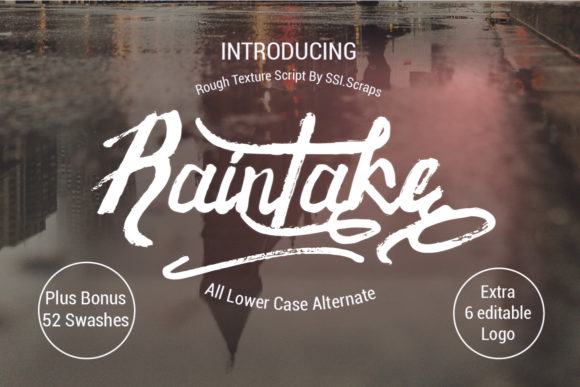
Prepare to be captivated by the Raintake Font, a breathtaking script that will unleash the raw power of your designs. Crafted with meticulous care by the renowned Syukursetiyadi, Raintake's rugged texture embodies the essence of courage and audacity.
Immerse yourself in the world of Raintake and witness the transformation of your creations. Its bold strokes and captivating curves will evoke a sense of strength and determination in every word you write. Let Raintake be your weapon of choice as you conquer the digital realm and leave an unforgettable mark.
But the Raintake Font offers more than just visual prowess. It's a gateway to limitless possibilities, empowering you to express your unique style with confidence. From branding projects that demand attention to personal designs that speak volumes, Raintake will effortlessly elevate your work to new heights.
And as a special bonus, Raintake comes armed with an arsenal of 6 editable logos, ready to amplify your brand's presence. These meticulously designed logos provide a solid foundation for your visual identity, allowing you to establish a cohesive and impactful brand experience.
Don't settle for ordinary fonts that fade into the background. Embrace the Raintake Font and watch your designs ignite with passion, power, and unwavering determination. Step into the spotlight and let Raintake guide you on a journey of creative triumph.